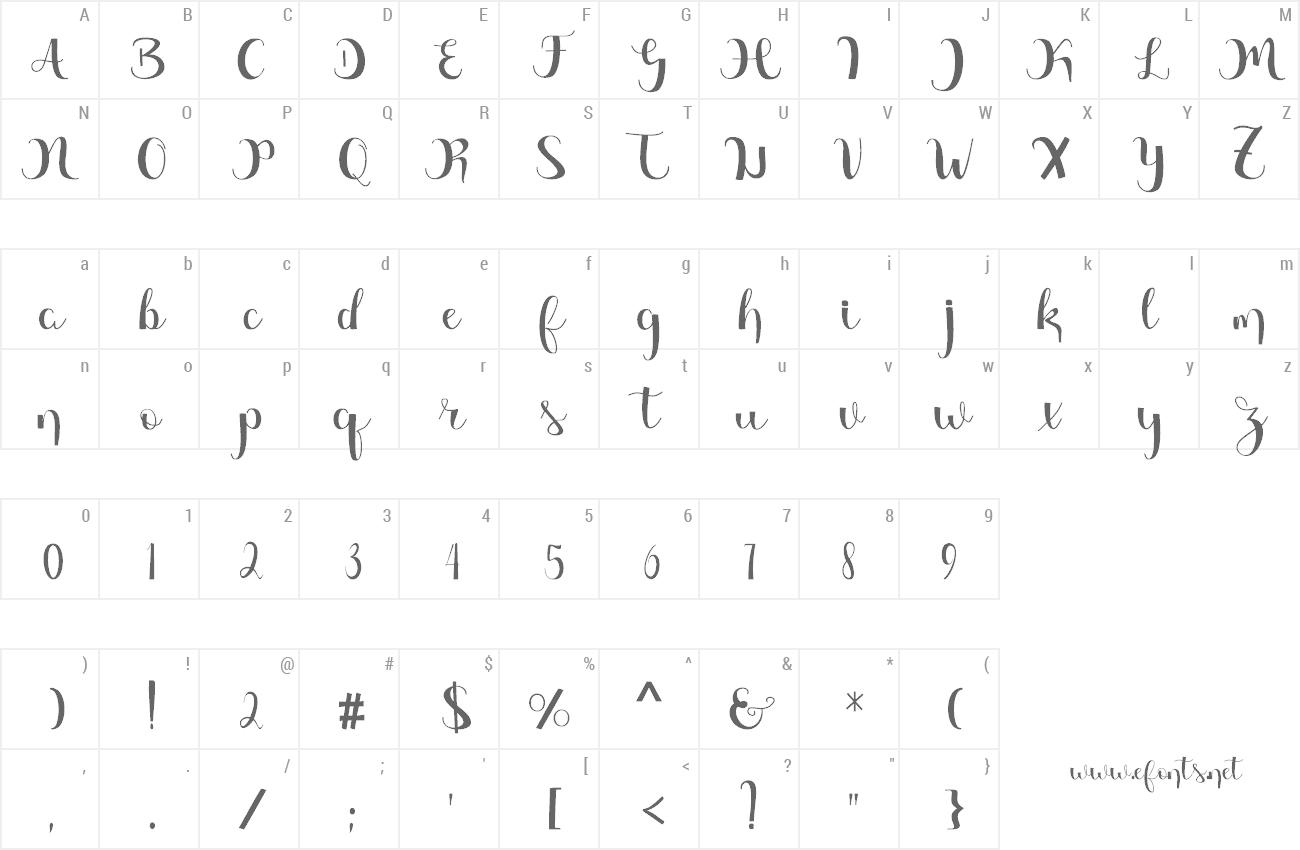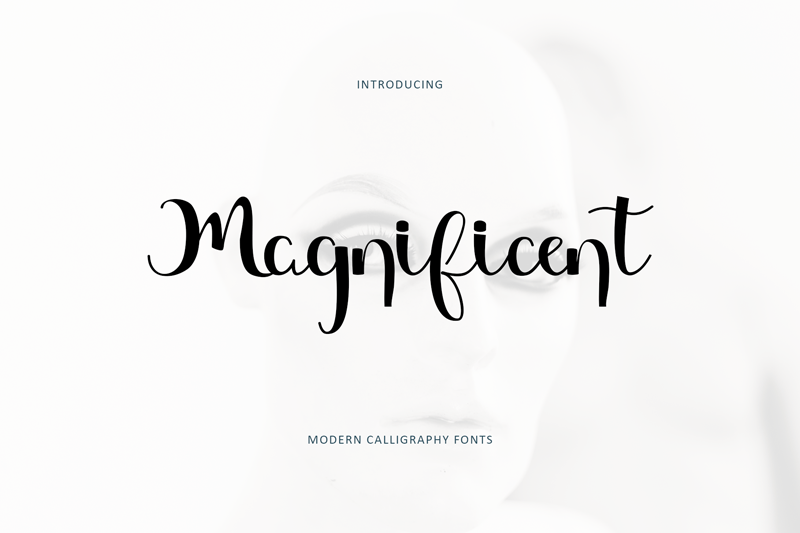
Preview and download Magnificent Font. Created by Rahmat Hidayat in Script Various styles with Free for personal use license.
Magnificent is a script font that has the characteristic handwriting, it is very suitable to make certain label and event business and you could be using for a unique piece. Visit here to get full version License : Free for personal use File Type : ttf Visit here to get all produck: https://creativemarket.com/Deniz86 https://fontbundles.net/deniz86/160629-16-incredible-handwritten-fonts https://graphicriver.net/item/songstar/21960190 Thanks Deniz86 |